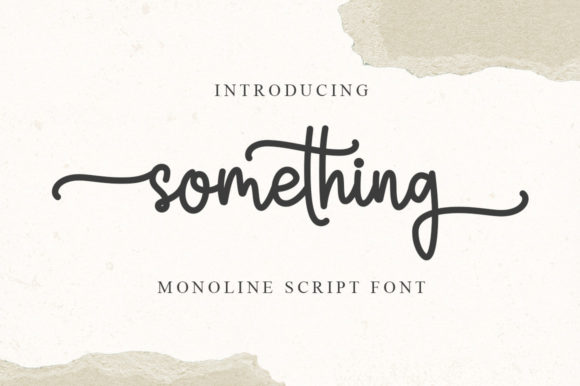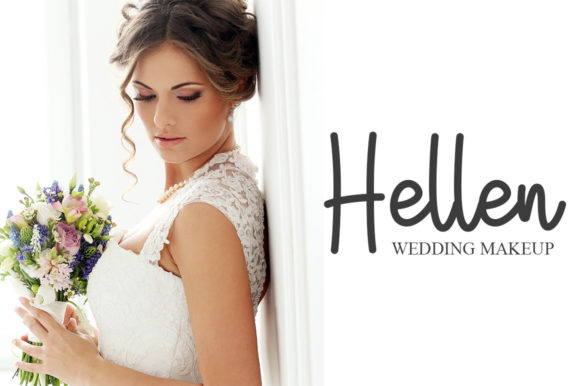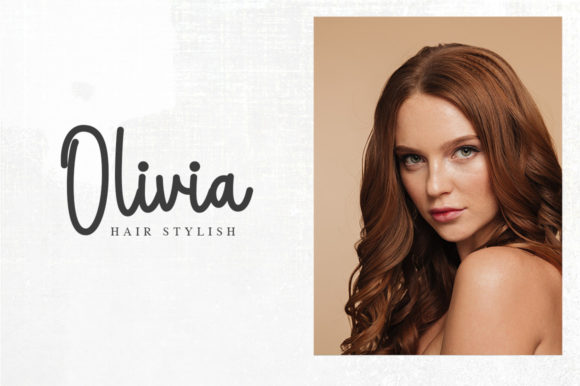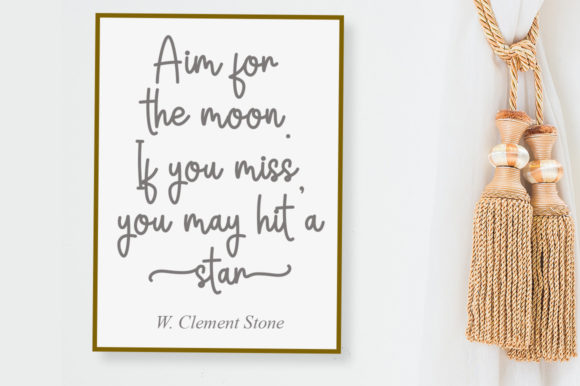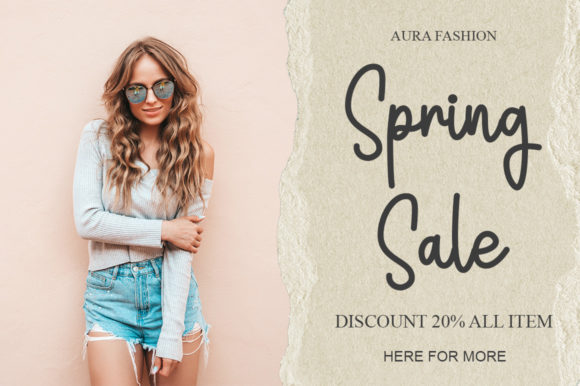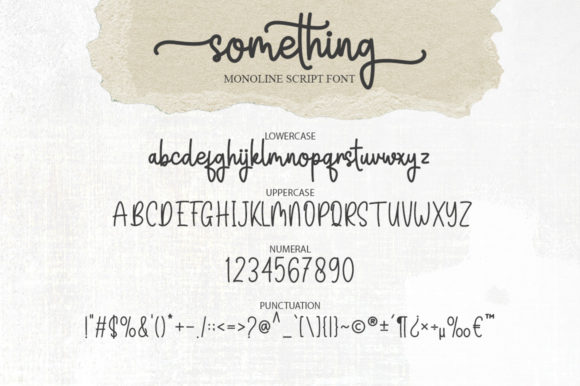
About Something Font
“Something” is not just a font—it’s an elegant handwritten typeface that exudes charm and sophistication. With its dainty and joyful appearance, this font is ideal for adding a romantic and personalized touch to a variety of designs, making it perfect for wedding invitations, cards, and any other project that requires a touch of romance.
The graceful strokes and delicate curves of “Something” lend a sense of elegance and whimsy to your designs, creating a captivating and memorable aesthetic. Whether used for headlines, body text, or accents, this font adds a touch of personality and warmth that sets your work apart.
One of the standout features of “Something” is its PUA encoding, which grants easy access to all of its glyphs and swashes. This means you can effortlessly customize and embellish your designs, adding decorative elements and flourishes to enhance their visual appeal and make them truly unique.
Moreover, “Something” is designed with practicality in mind. Its well-balanced letterforms ensure readability across various mediums and platforms, ensuring your message is effectively communicated to your audience.
In summary, “Something” is more than just a font—it’s a versatile and elegant tool that empowers designers to create stunning and personalized designs with ease. Whether you’re crafting wedding invitations, cards, or any other project, this font adds a touch of romance and charm that will leave a lasting impression on your audience.